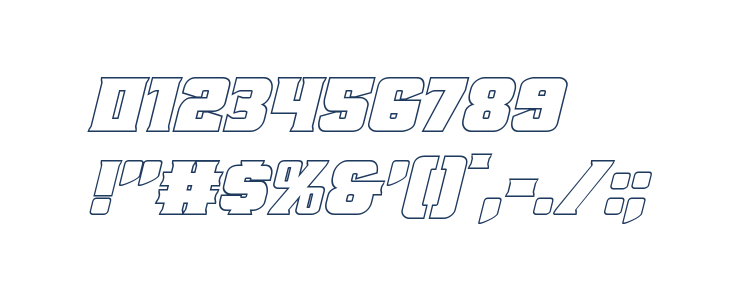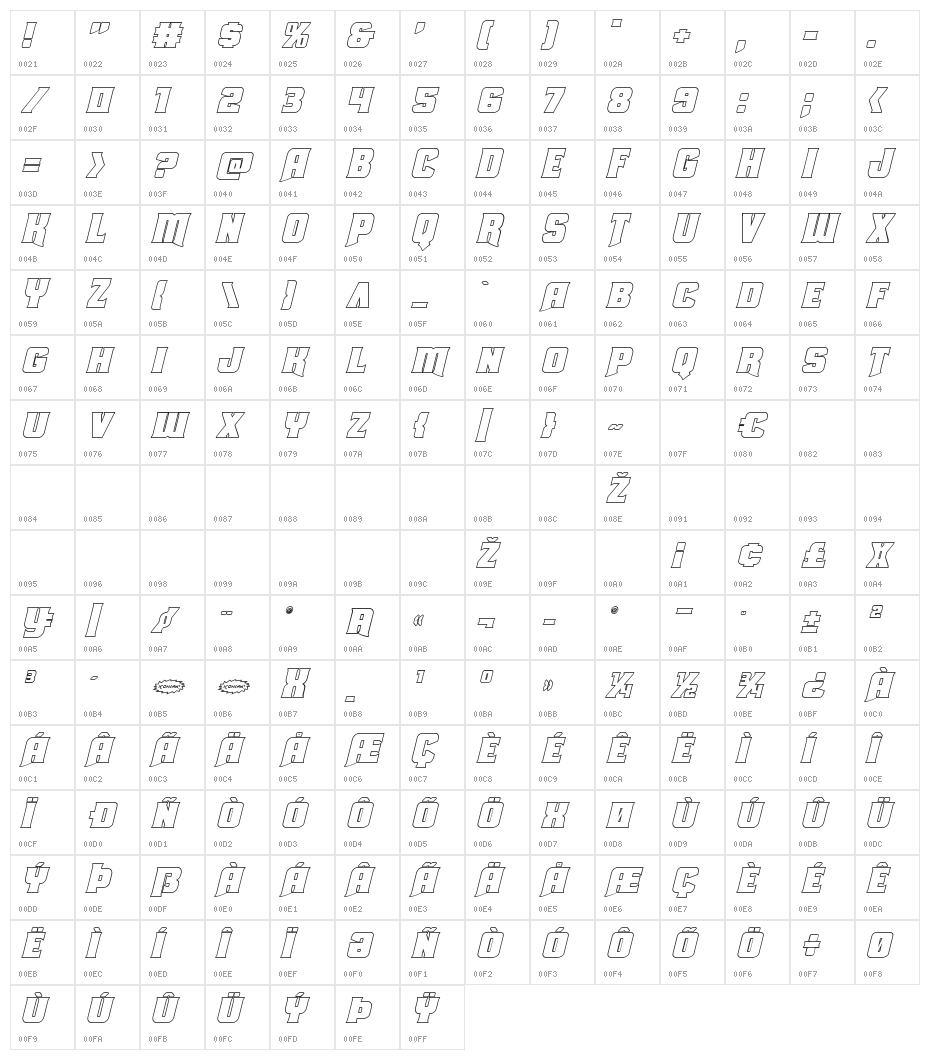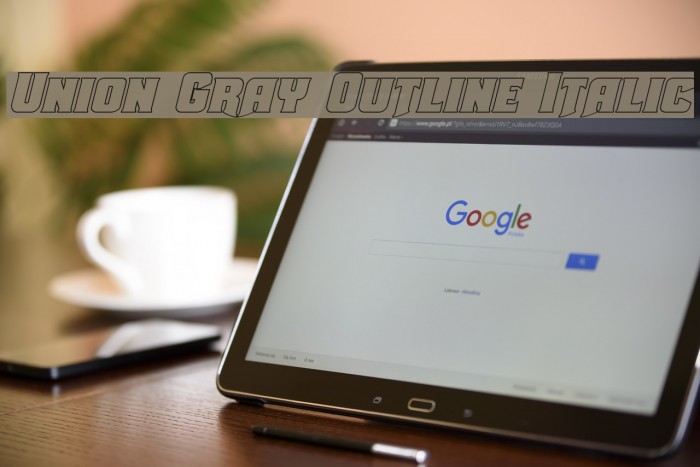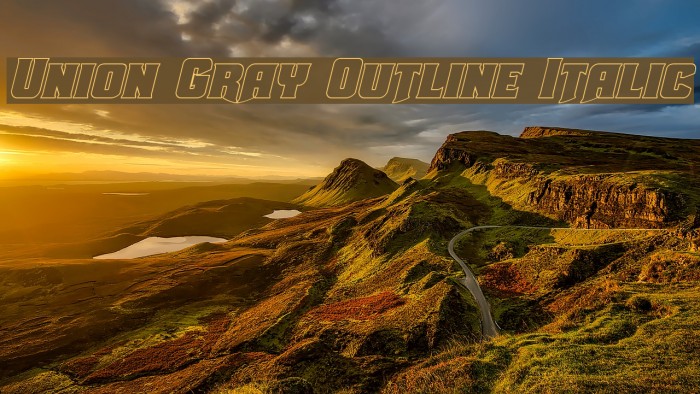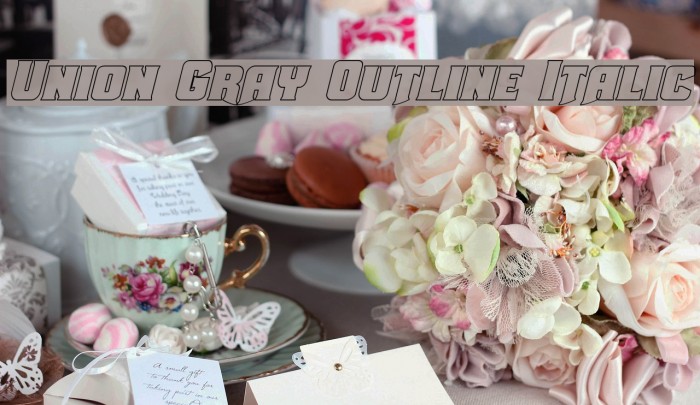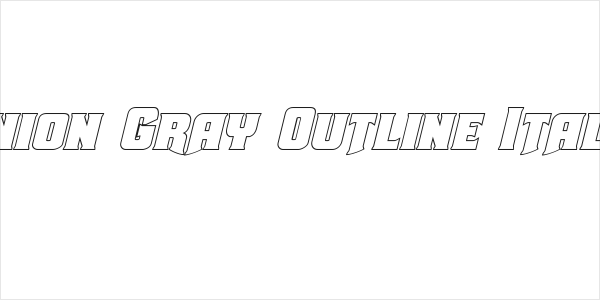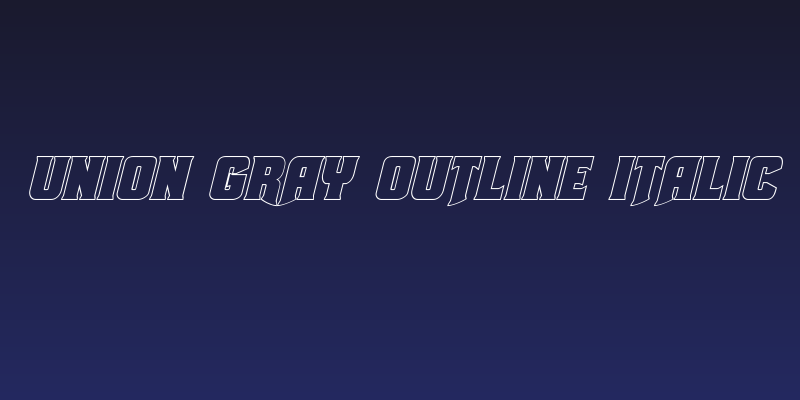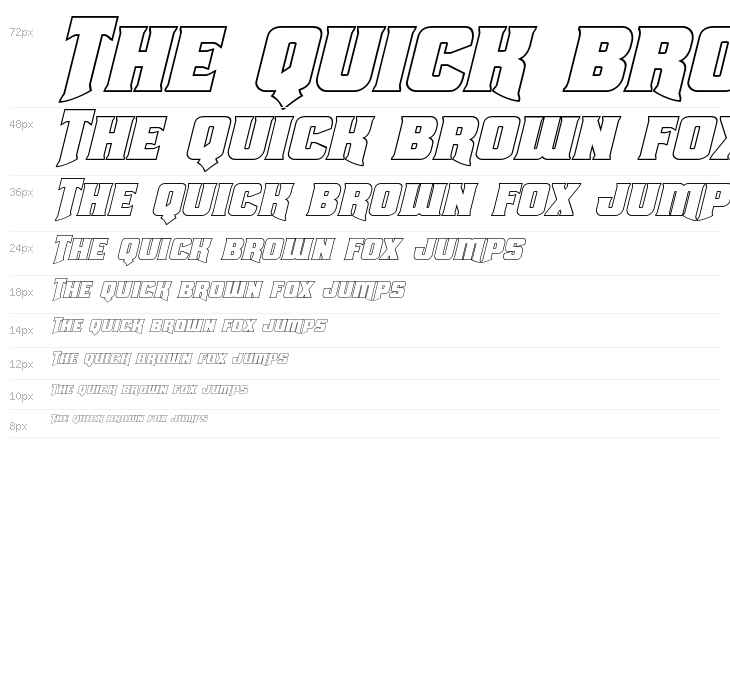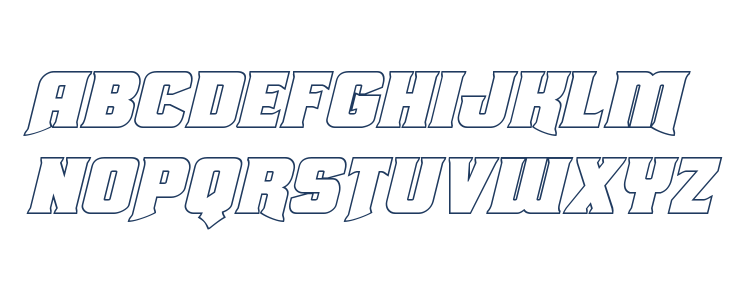
Union Gray Outline Italic Font
Union Gray Outline Italic Description
This font features a bold, outlined style with an italic slant, giving it a dynamic and modern appearance. The characters are uppercase and numerals, with a distinct geometric structure that emphasizes sharp angles and clean lines. The outline effect adds depth and dimension, making each letter stand out prominently. The italic slant enhances the sense of motion and energy, suitable for attention-grabbing designs. The spacing between characters is relatively tight, contributing to a cohesive and compact look. This font is ideal for projects that require a bold statement and a contemporary edge.